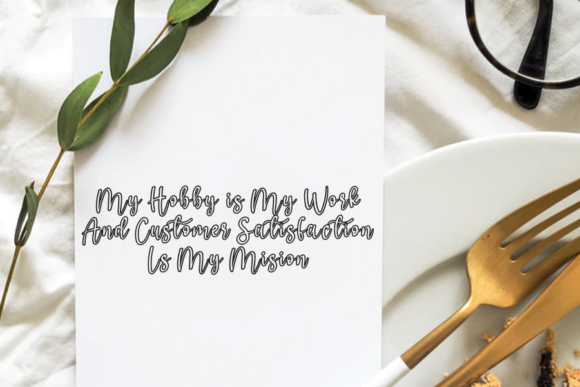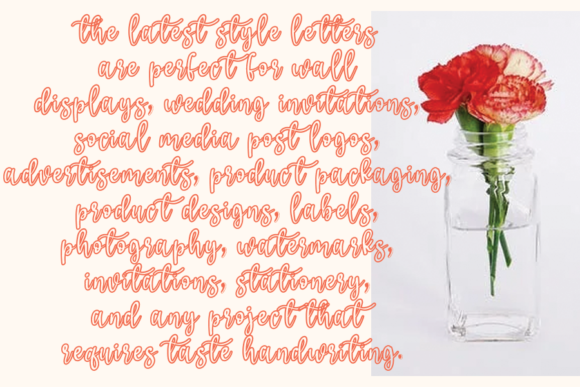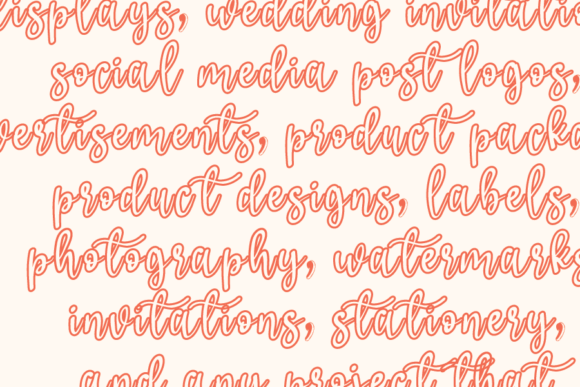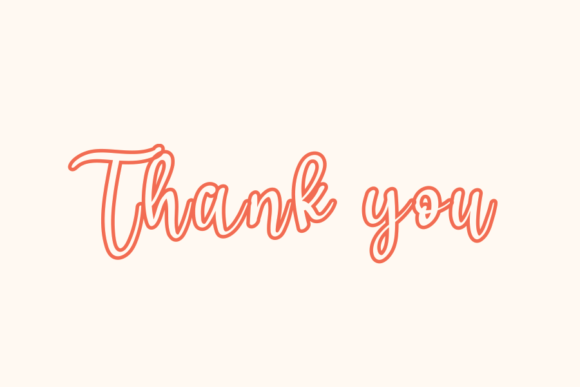
Introduction to Hello Line Font
Do you ever find yourself scrolling through design inspiration boards, and suddenly, a single font catches your eye? For me, that moment happened when I stumbled upon the Hello Line Font. Its flowing, elegant style immediately drew me in, and I knew I had to learn more about it.
As a designer, I appreciate fonts that are versatile and can be used in a variety of creative projects. The Hello Line Font is perfect for those who want to add a touch of sophistication to their designs. Whether you’re working on a wedding invitation, social media post, or stationary art, this font is sure to make your design stand out. With its high-quality design and transparent background, it’s a valuable resource for any designer looking to elevate their work.
Key Features of Hello Line Font
- Unique, hand-drawn design with a transparent background, allowing for easy customization.
- Includes a range of line styles and weights, perfect for adding visual interest to your designs.
- Designed to be highly legible, making it ideal for use in headings, titles, and body text.
Honest Review: Hello Line Font
I recently had the chance to work with the Hello Line Font, and I’m excited to share my thoughts with you. As a designer, I’m always on the lookout for high-quality fonts that can elevate my creative projects. The Hello Line Font is a great addition to any design resource.
- ✨ Clean and modern design: The font has a sleek and sophisticated look that’s perfect for a variety of projects, from logos to typography.
- ✨ Transparent background: The font’s transparent background makes it easy to layer over images and other design elements.
- ⚠️ Limited language support: The font only supports a few languages, which may be a concern for designers working on projects that require a wider range of languages.
- ⚠️ Not ideal for small text: The font can be a bit too large and bold for small text, which may make it difficult to read.
Overall, I’m impressed with the Hello Line Font. While it may have some limitations, its clean design, free download, and transparent background make it a valuable addition to any design resource. I’d definitely recommend it for creative projects that require a modern and sophisticated look.
Hello Line Font is a high-quality design resource that offers a unique and creative way to add text to your projects. With its transparent background, you can easily customize the font to fit your design needs.
Tips for Getting the Most Out of Hello Line Font
To get the most out of Hello Line Font, here are some tips:
- Experiment with different font sizes and colors to create a unique look.
- Use the transparent background to create a sense of depth and dimension.
- Combine Hello Line Font with other design elements to create a visually appealing design.
Common Use Cases for Hello Line Font
Hello Line Font is perfect for:
- Creating eye-catching headings and titles.
- Designing social media graphics and ads.
- Adding a personal touch to presentations and documents.